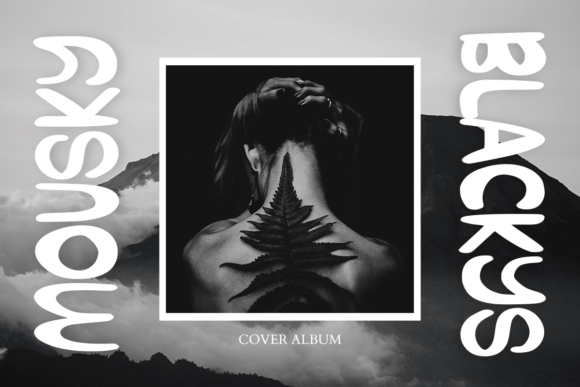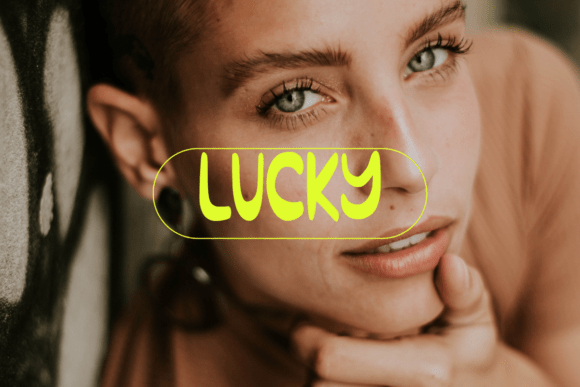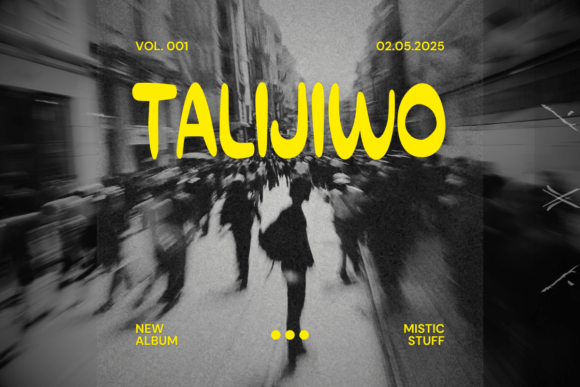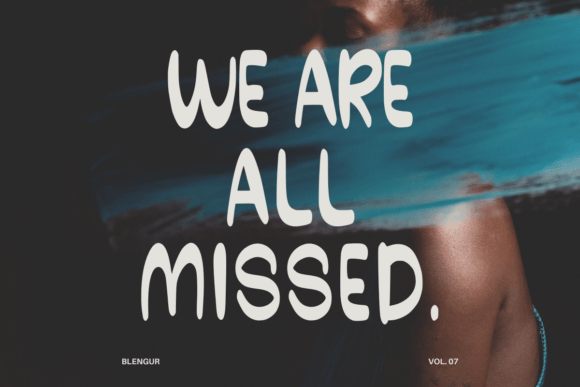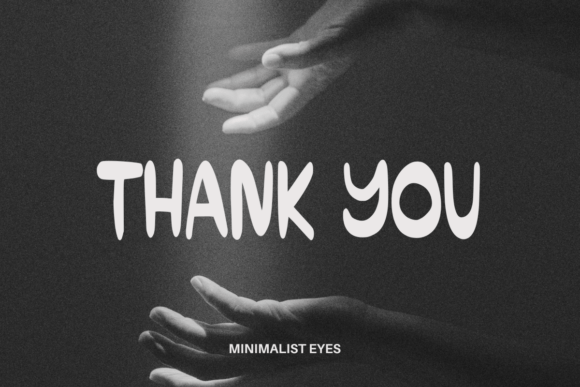
Discover the Charm of Flogue Font: A Playful and Modern Display Font
I’ll never forget the design project that led me to Flogue Font. I was working on a branding campaign for a trendy new coffee shop, and I needed a font that would capture their fun, laid-back vibe. After hours of scrolling through font libraries and trying out different combinations, I stumbled upon Flogue – and it was love at first sight! 💕
With its bold, rounded letterforms and soft, flowing curves, Flogue radiates personality and charm while maintaining a clean, minimalist feel. In this article, I’ll share my honest review of Flogue, a practical guide on how to use it, and some helpful tips and tricks to get the most out of this amazing font.
My Honest Review of Flogue Font
What I Love About Flogue ✨
- ✅ Unique and eye-catching design that’s perfect for creative projects
- ✨ Smooth contours and flowing curves that add a touch of elegance
- 💬 Highly legible, even at smaller sizes
- 🎨 Versatile and adaptable to various design styles and aesthetics
- ⚠️ Limited use for body text due to its bold and display nature
- 🤔 May not be the best fit for very formal or traditional designs
The Story Behind Flogue Font
Flogue was designed by a talented type designer who wanted to create a font that would capture the essence of modern creativity. Inspired by the natural world and the beauty of handmade crafts, Flogue is a reflection of the designer’s passion for unique and eye-catching typography.
| Font Name | Flogue Font |
| Author | Minimalist Eyes |
Q: What is Flogue Font best used for?
A: Flogue Font is perfect for creative projects that require a bold, eye-catching look, such as branding, logos, social media graphics, packaging, and editorial layouts.
Q: Is Flogue Font suitable for body text?
A: While Flogue is highly legible, it’s primarily designed for display purposes. For body text, you may want to consider a font with a more traditional or serif design.